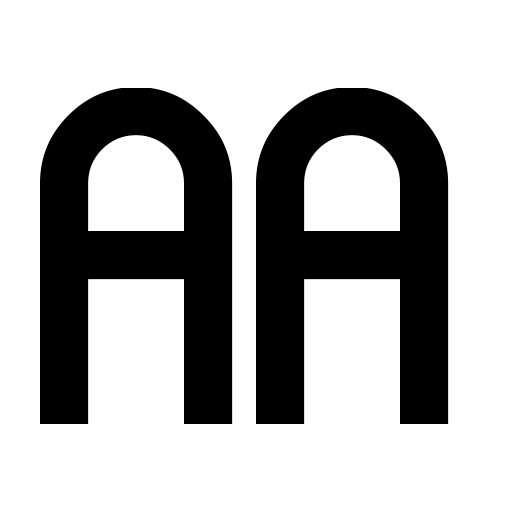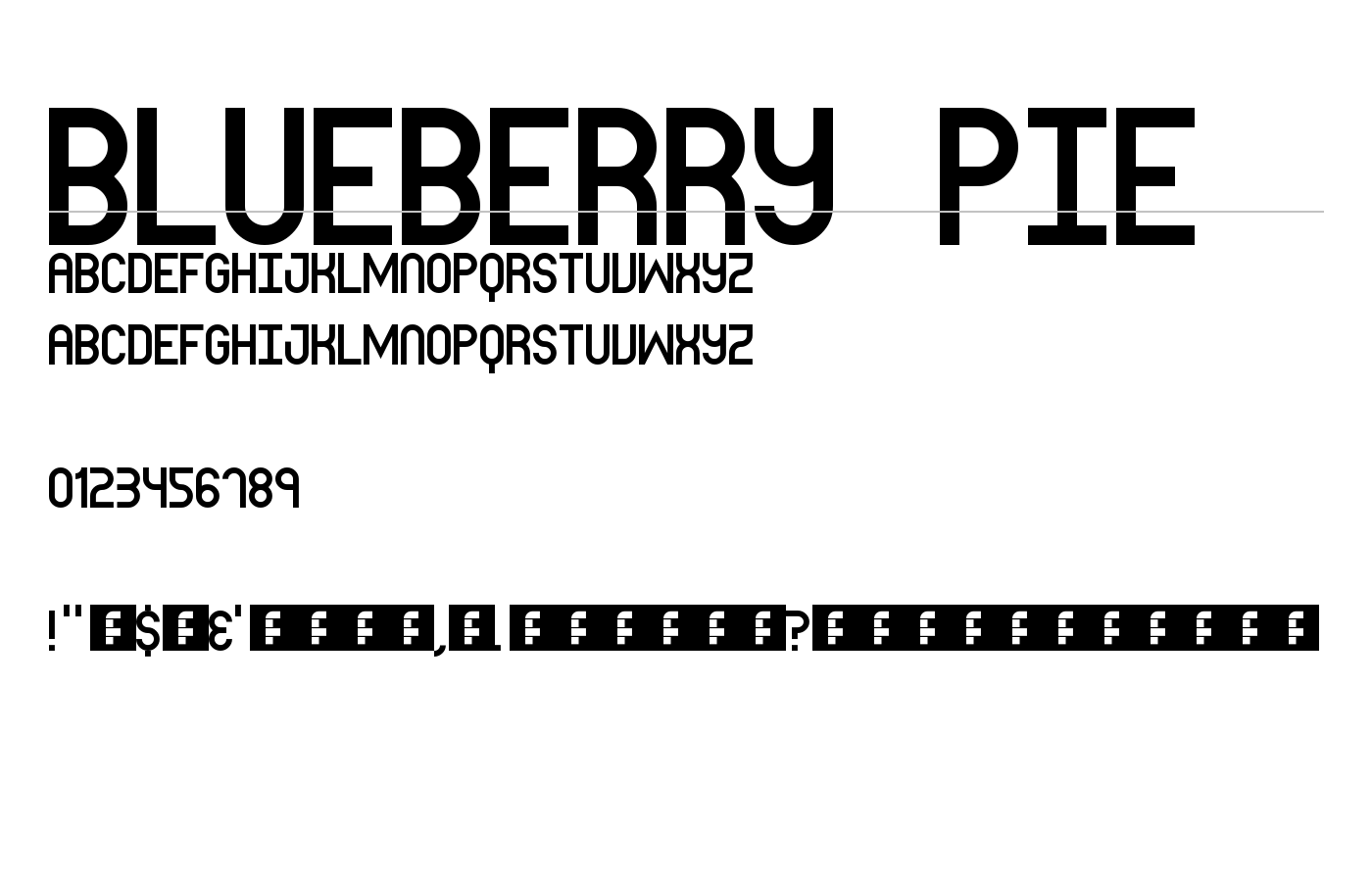
Blueberry Pie is a modern sans serif font with a clean, geometric style and a condensed width that creates a sleek, contemporary look. Its uniform stroke weight and tall x-height deliver excellent readability and a sophisticated, minimalist vibe, making it ideal for headlines, logos, and editorial design where a fresh and professional appearance is desired. This font’s unique letter shapes add character without sacrificing clarity, perfect for brands aiming to convey innovation and elegance.
Blueberry Pie Font
About Blueberry Pie Font